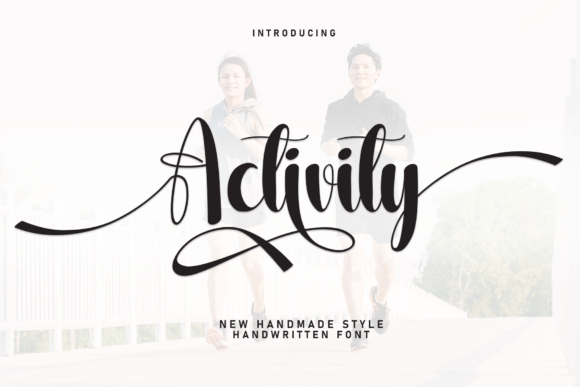
Adorn your designs with a touch of heartfelt elegance with Activity Font, a charming script font family that exudes warmth and sophistication. Crafted by the skilled hands of William Jhorby, Activity Font is more than just a mere font; it's an artistic expression that captivates the eye and speaks to the heart.
Immerse yourself in the vintage charm of Activity Font, where each letter seems to dance and flow with graceful curves and effortless style. Its timeless appeal makes it the perfect choice for creating designs that evoke a sense of nostalgia and elegance. Whether you're designing wedding invitations, cards, posters, or any other project that demands a touch of timeless beauty, Activity Font is your perfect companion.
With Activity Font, you can effortlessly add a touch of whimsy and playfulness to your designs. Its sweet and friendly nature makes it ideal for projects aimed at capturing the hearts of your audience. It's the perfect font for creating designs that resonate with a sense of warmth and genuine connection, leaving a lasting impression on your viewers.
Explore the endless possibilities of Activity Font and experience the joy of creating designs that captivate and inspire. Its versatility extends beyond mere aesthetics; its functionality makes it a breeze to use, ensuring a seamless and enjoyable design experience. Embrace the beauty of Activity Font and let your creativity flourish.